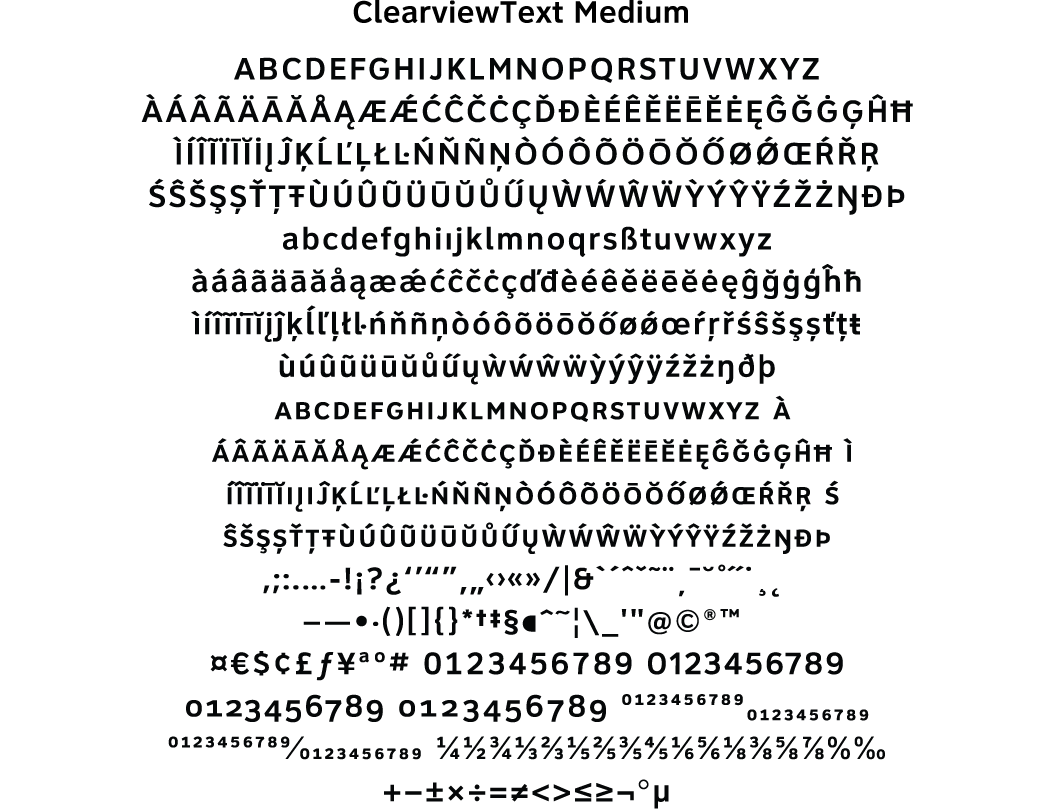
Clearview One Font
Clearview One Font - Web clearview font is a high legible humanist sans serif typeface that was used for guide signboards on the roads of the usa,.